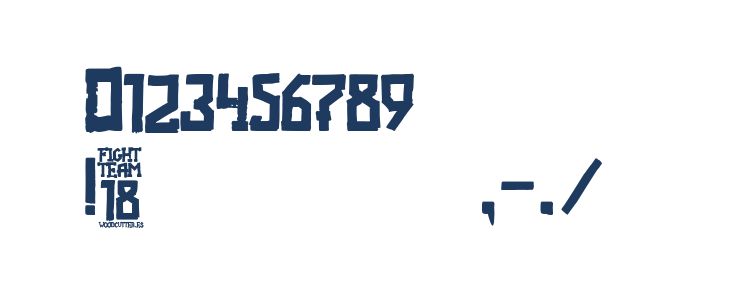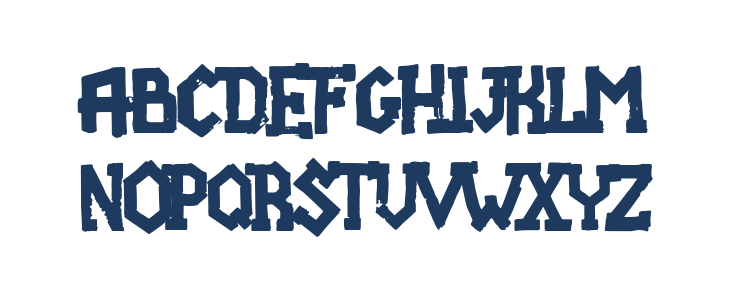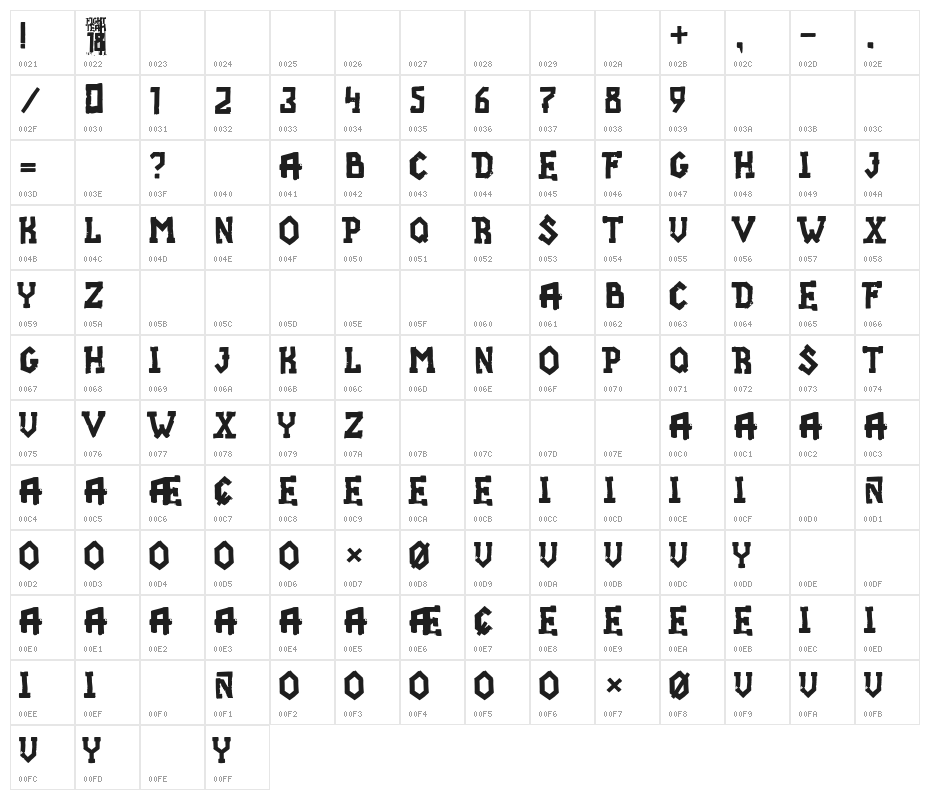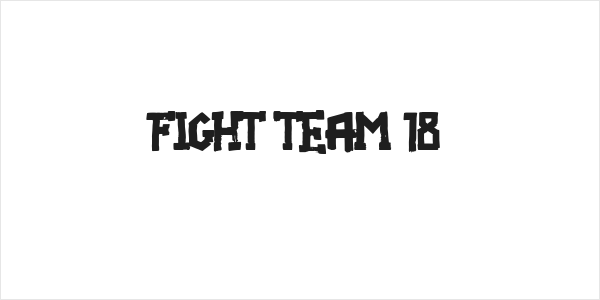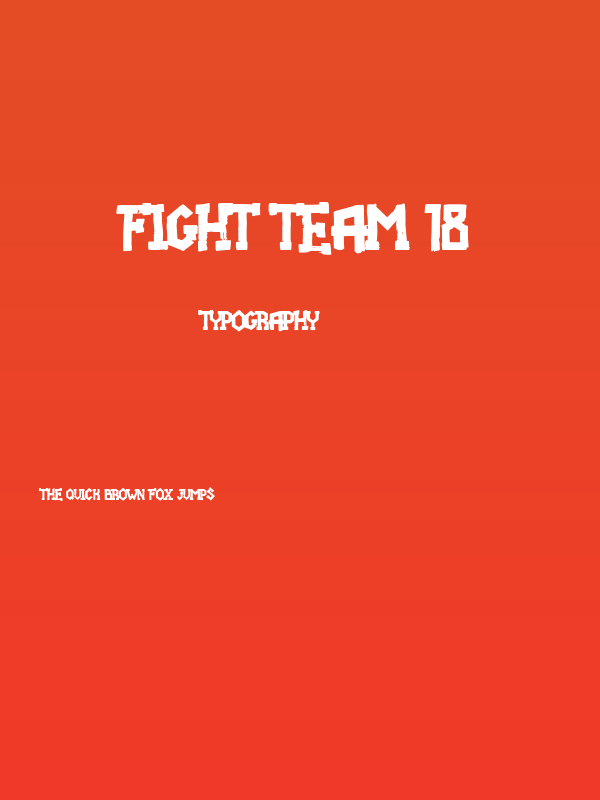
Fight team 18 Font
A bold, distressed display font with rough, uneven edges and a hand-crafted, blocky appearance. The characters are uppercase with a strong, aggressive presence, and the numerals and symbols match the rugged style.
Overall StyleDecorative, Aggressive, Urban
Use CaseHeadlines, Logos, Posters, Sports Graphics
Proposed ProjectsSports branding, event posters, action-themed graphics, video game titles, streetwear logos.